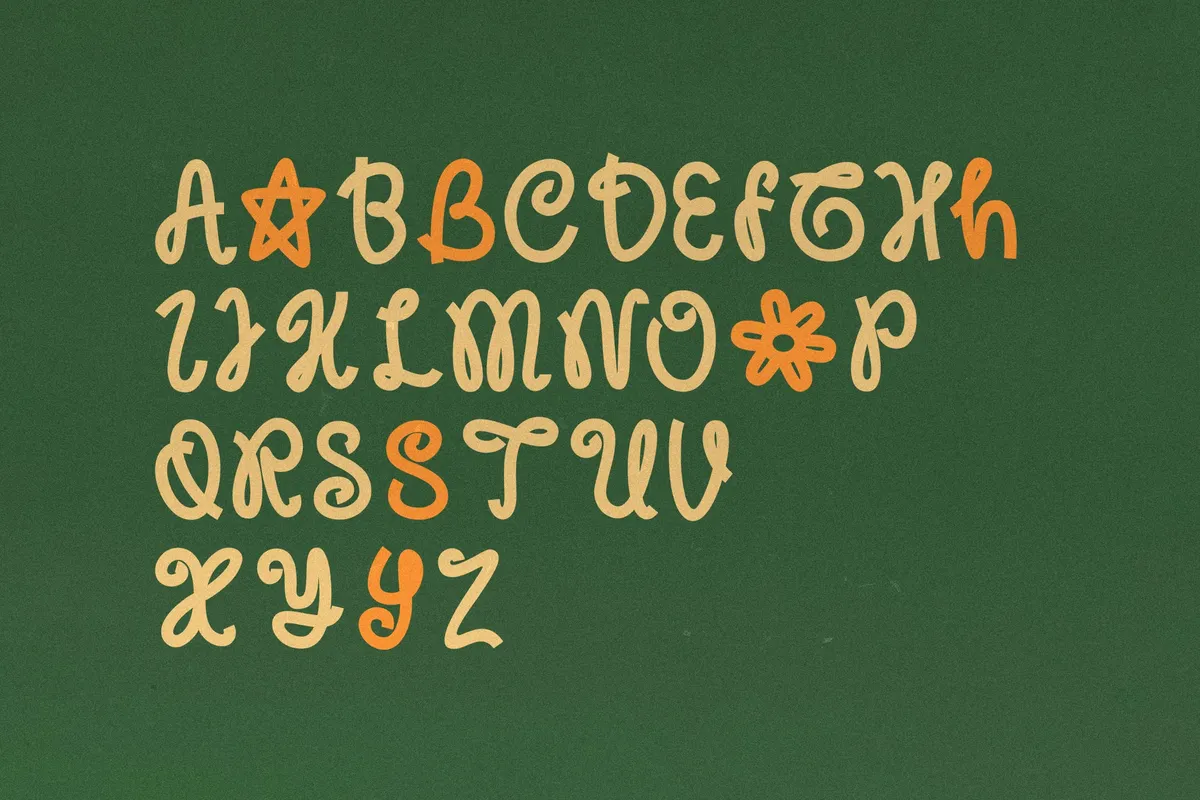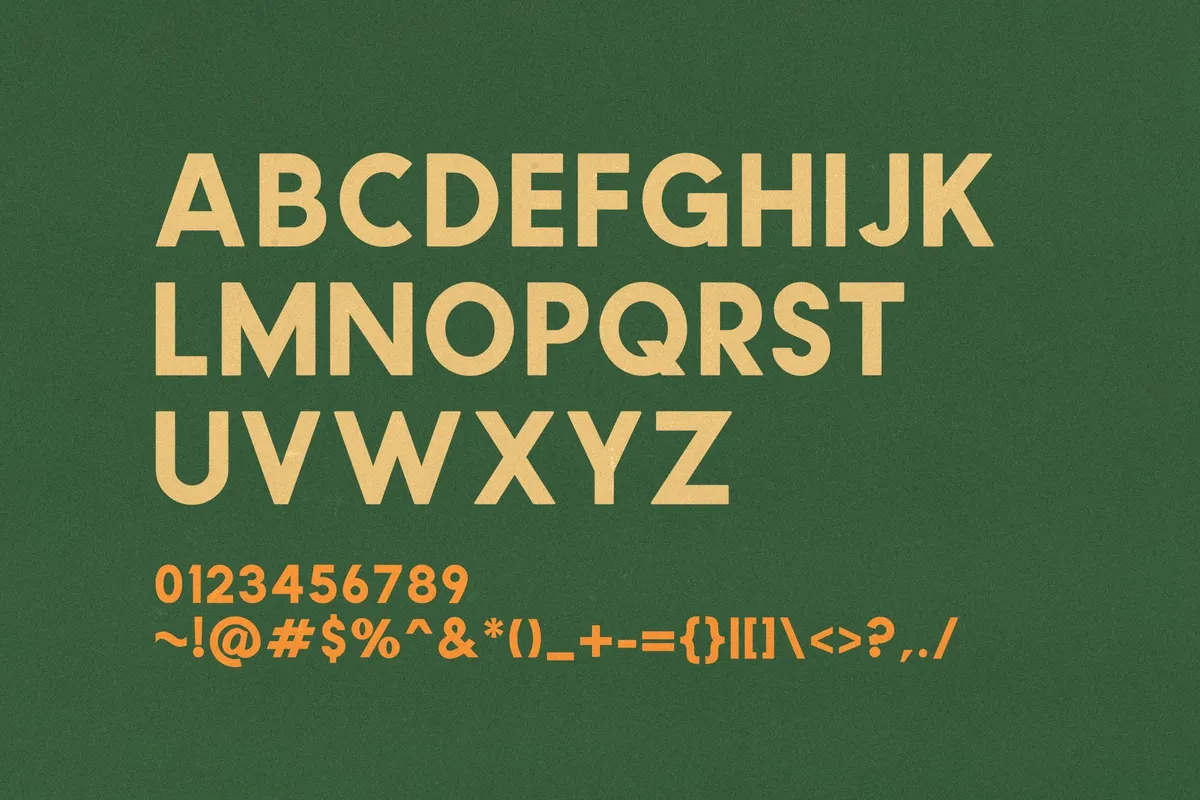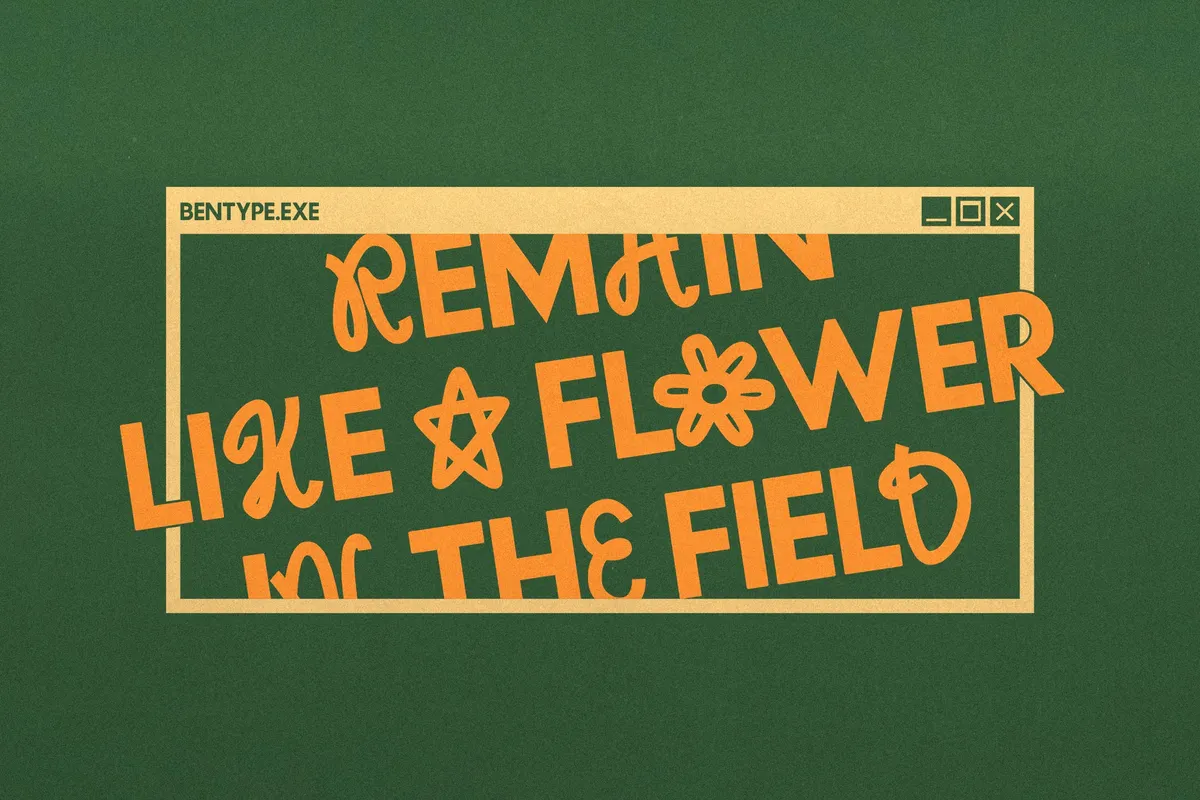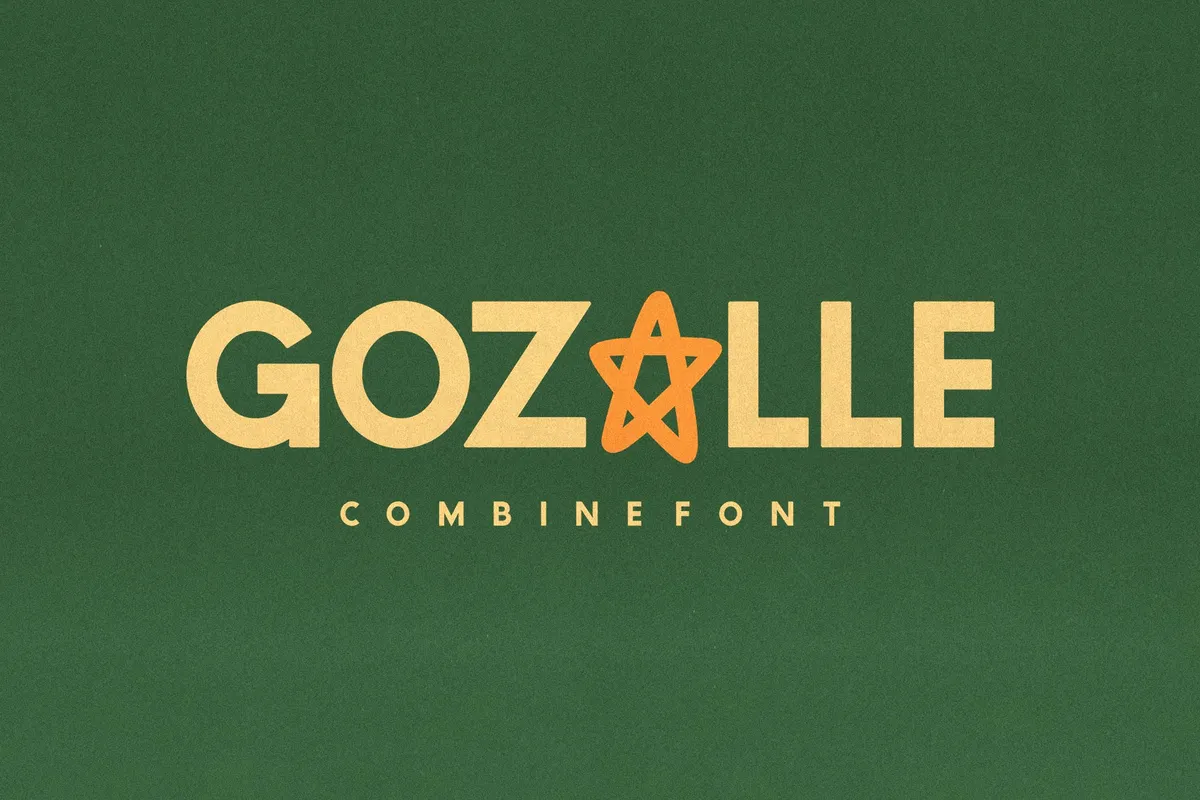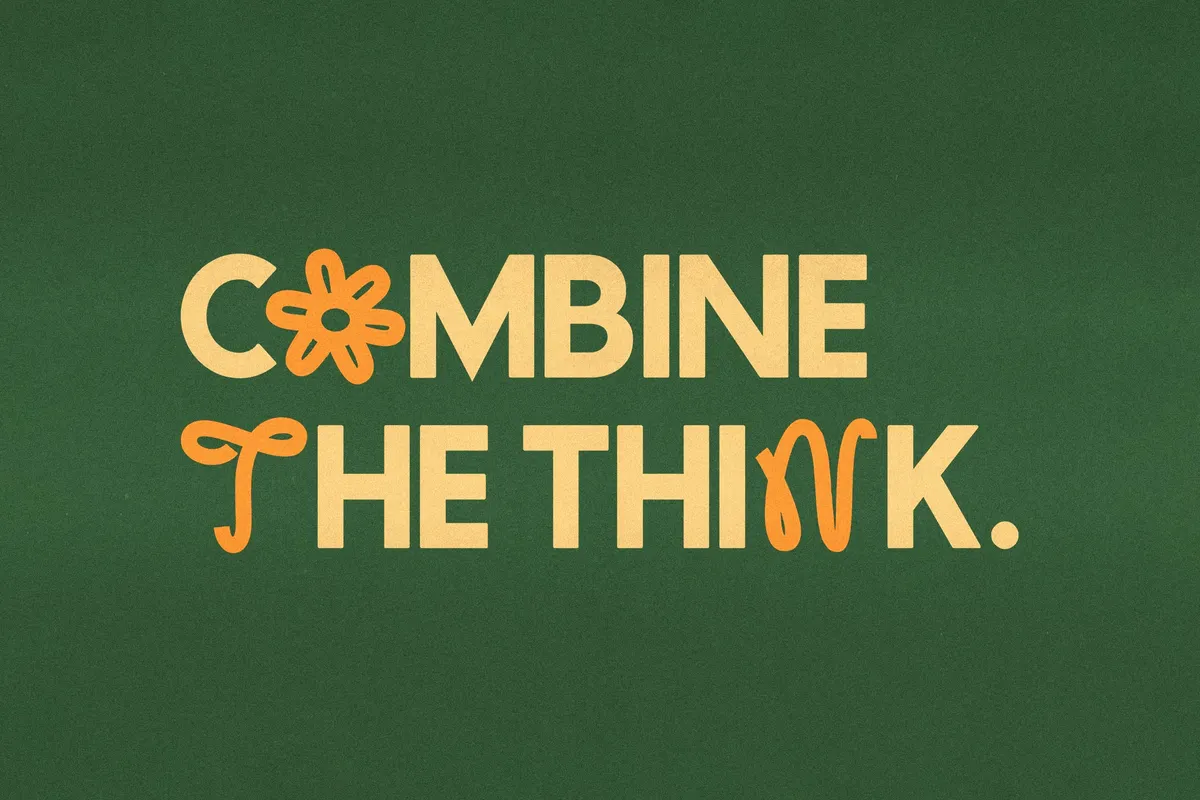
Gozalle - Bold Display Combine Font
Gozalle
Gozalle is a bold display font that pairs two complete alphabets in one file: a chunky, unicase block-letter base and a looser script alternate that swaps in through OpenType stylistic sets. A dozen characters carry a second, decorative layer too, turning the A into a star and the O into a flower for headlines that want a little wink.
Use it for branding and logotypes, editorial headlines and pull quotes, packaging accents, apparel graphics, and social campaign graphics where the block base needs to sit next to something looser.
- 2 stylistic sets: a full script alternate for the whole alphabet, and a decorative alternate for select characters (A, B, H, O, S, Y);
- uppercase & lowercase;
- numerals, punctuation & symbols;
- multilingual support.